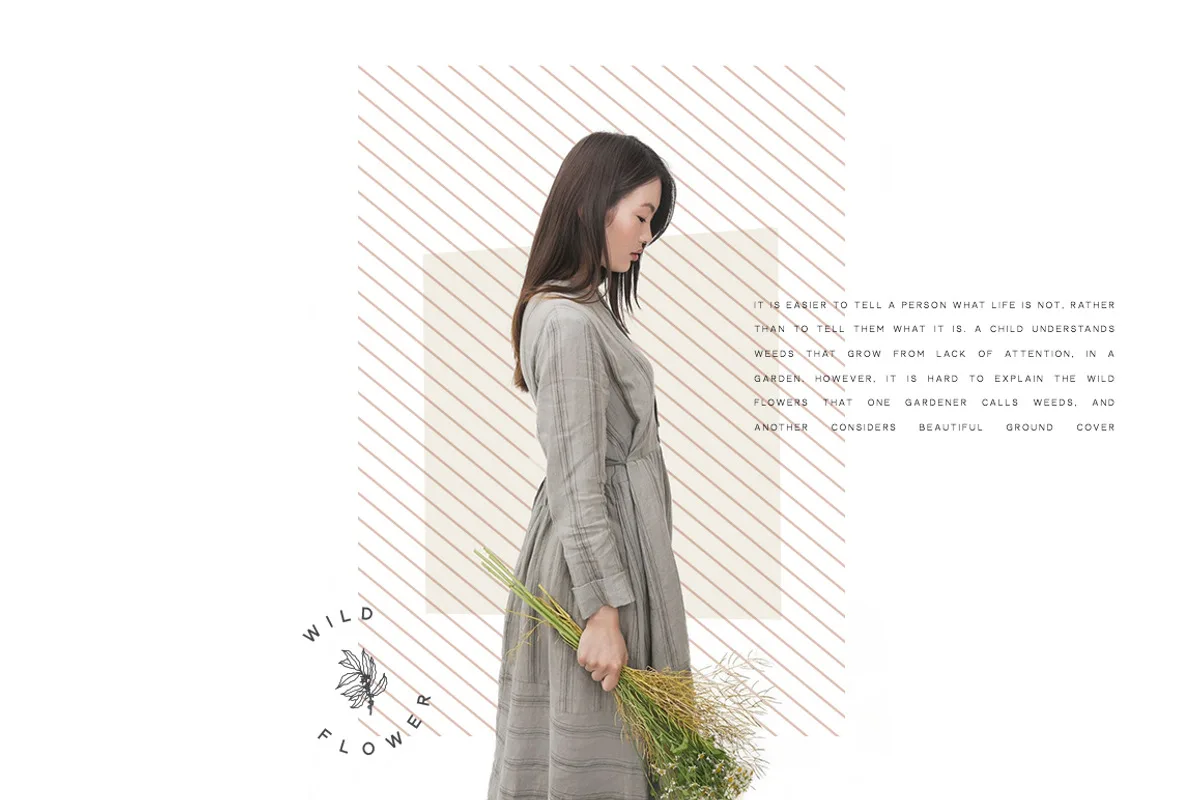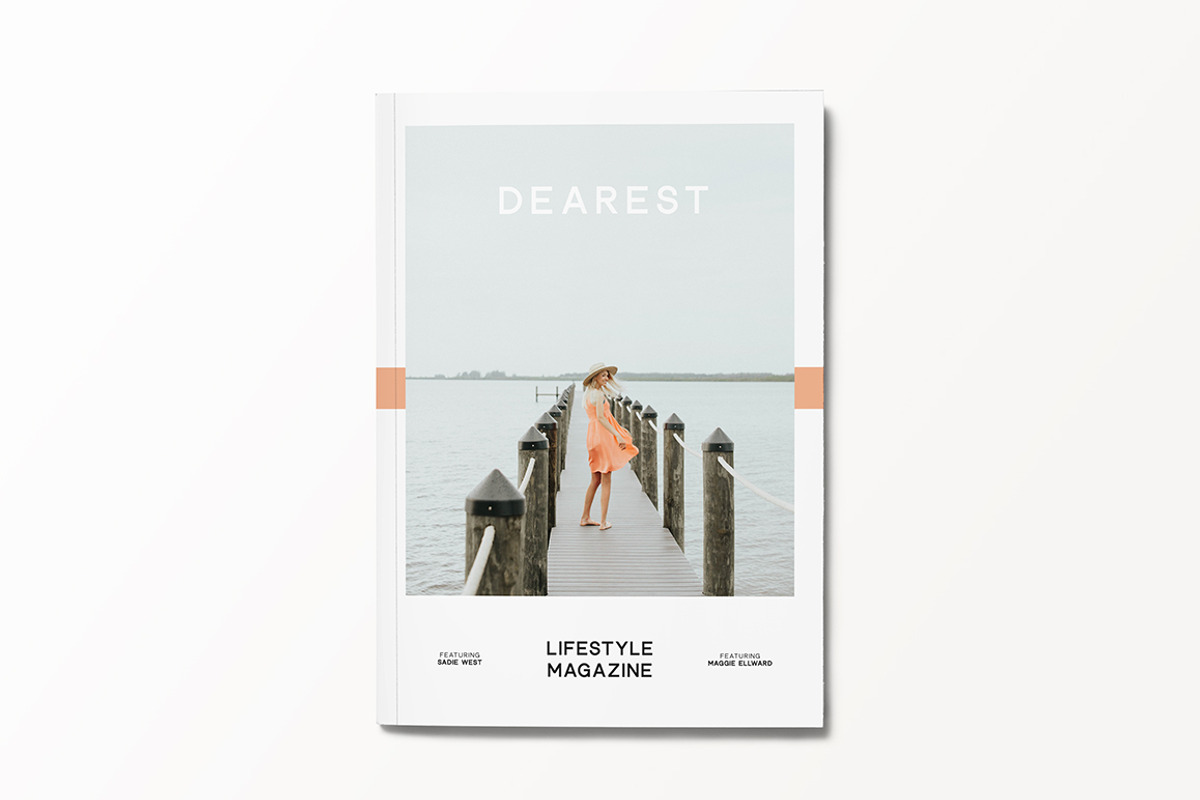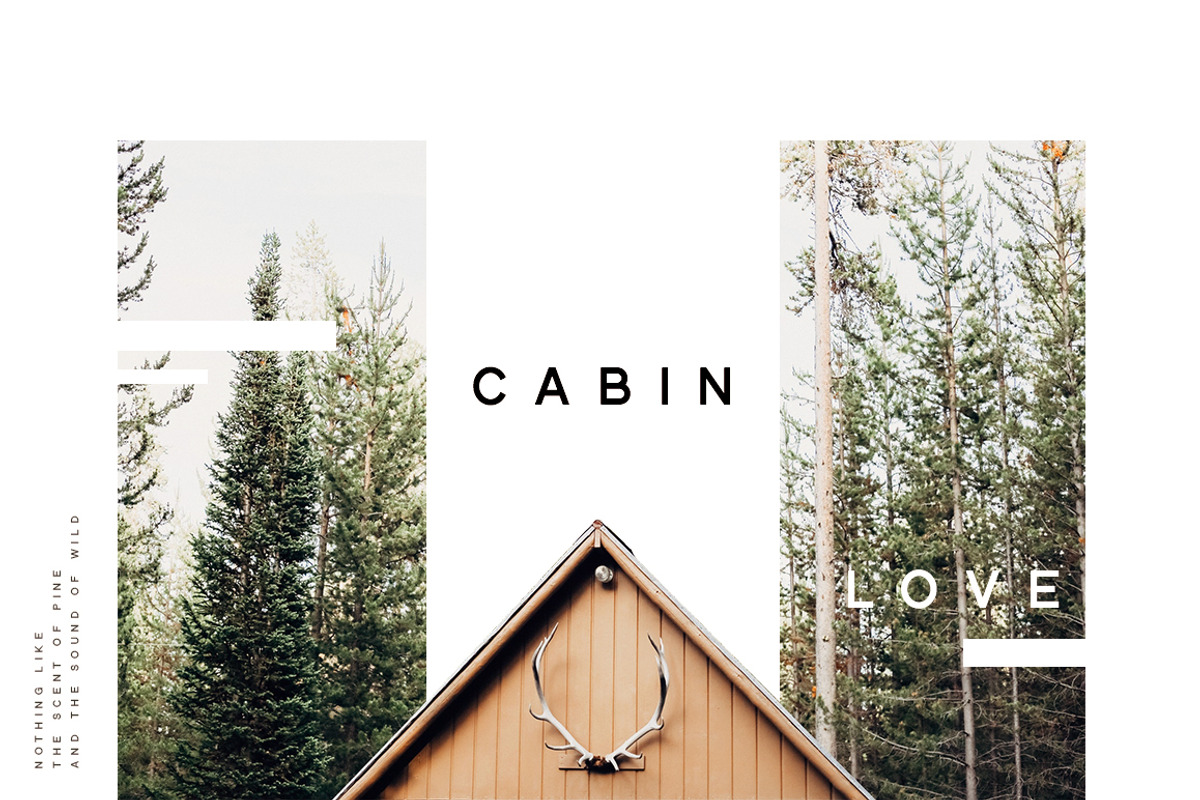
Oxford is a minimal sans serif font that has already become a staple in all my freelance work. It is SO beautiful for quotes, logos, invitations, magazines, web, and more.
With three weights (light, regular, + bold), it’s easy to use in multiple contexts and works super well for branding suites.
Oxford Sans Serif Font